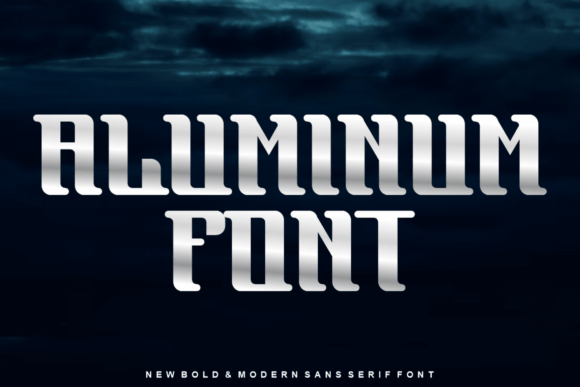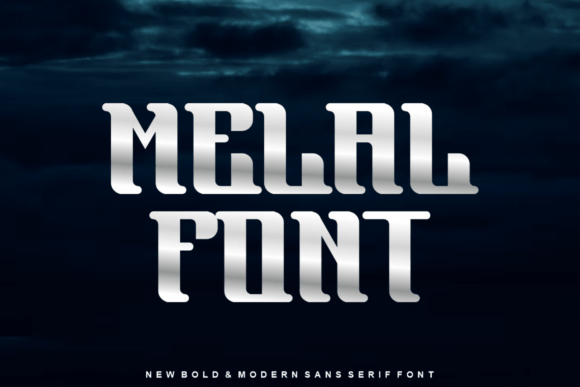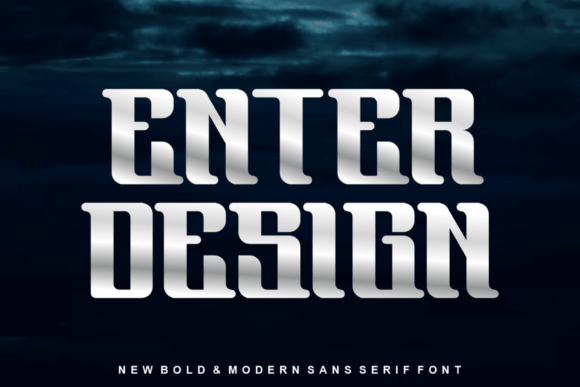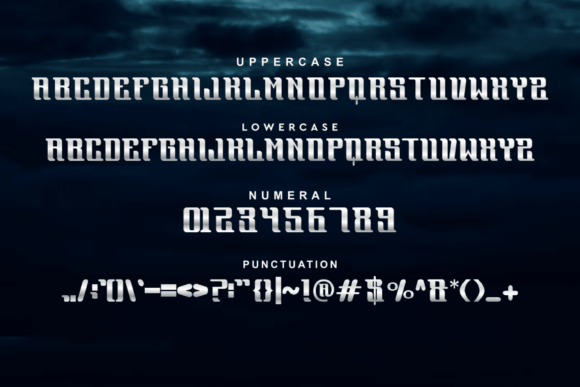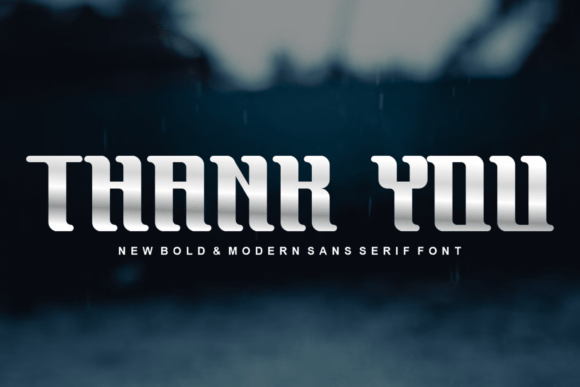
Introducing Genorem Font: The Ultimate Modern Display Font for Creative Minds
Are you a designer, crafter, or creative enthusiast looking for a font that can elevate your projects to new heights? Look no further than Genorem Font, a stunningly cool and modern display font that’s taking the design world by storm. Masterfully designed to become a true favorite among creatives, Genorem Font has the potential to bring each of your innovative ideas to life in the most captivating way possible.
The Design Behind Genorem Font
Genorem Font is the brainchild of talented designers who poured their hearts and souls into crafting a font that’s both visually striking and highly versatile. With its sleek lines, elegant curves, and precision-crafted details, this font exudes a sense of sophistication and modernity that’s hard to resist. Whether you’re working on a branding project, a marketing campaign, or a personal creative endeavor, Genorem Font is the perfect choice for those who want to make a lasting impression.
What Makes Genorem Font So Special?
So, what sets Genorem Font apart from other display fonts on the market? Here are just a few reasons why this font is quickly becoming a favorite among designers and crafters:
- Unique Character Set: Genorem Font boasts a comprehensive character set that includes uppercase and lowercase letters, numbers, punctuation marks, and special characters. This means you can use it for a wide range of projects, from simple headings to complex typographic designs.
- Modern Aesthetic: Genorem Font’s sleek, contemporary design makes it perfect for projects that require a fresh, modern look. Its clean lines and minimalist approach ensure that your text will always look crisp, elegant, and highly legible.
- Highly Versatile: Whether you’re designing a logo, a poster, a website, or a social media graphic, Genorem Font adapts seamlessly to any context. Its scalability and legibility make it an excellent choice for both print and digital applications.
How to Use Genorem Font in Your Projects
Now that you’ve fallen in love with Genorem Font, you’re probably wondering how to incorporate it into your creative projects. Here are a few ideas to get you started:
- Branding and Logos: Use Genorem Font to create a stunning logo that captures the essence of your brand. Its modern design and sleek lines make it perfect for companies that want to appear cutting-edge and innovative.
- Marketing Materials: Elevate your marketing campaigns with Genorem Font’s bold, attention-grabbing design. Use it for posters, flyers, brochures, and social media graphics that need to stand out from the crowd.
- Web Design: Genorem Font is an excellent choice for web designers who want to add a touch of modernity to their websites. Use it for headings, titles, and other typographic elements that require a fresh, contemporary look.
- Crafting and DIY Projects: If you’re a crafter or DIY enthusiast, Genorem Font can add a professional touch to your projects. Use it for signs, labels, and other decorative elements that require a clean, elegant design.
In conclusion, Genorem Font is an exceptional modern display font that’s sure to become a staple in your design toolkit. Its unique character set, modern aesthetic, and high versatility make it perfect for a wide range of creative projects. Whether you’re a designer, crafter, or simply a creative enthusiast, Genorem Font has the potential to bring your ideas to life in the most captivating way possible. So why wait? Download Genorem Font today and start exploring the endless possibilities it has to offer!